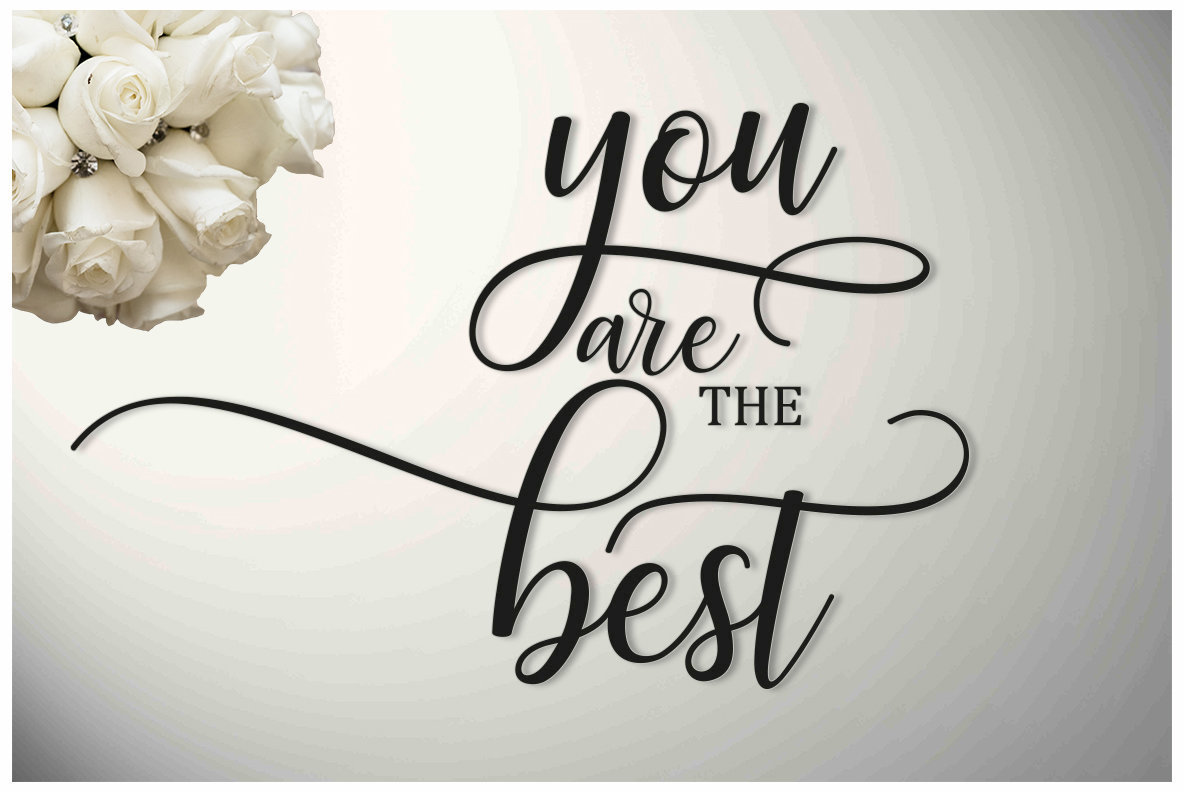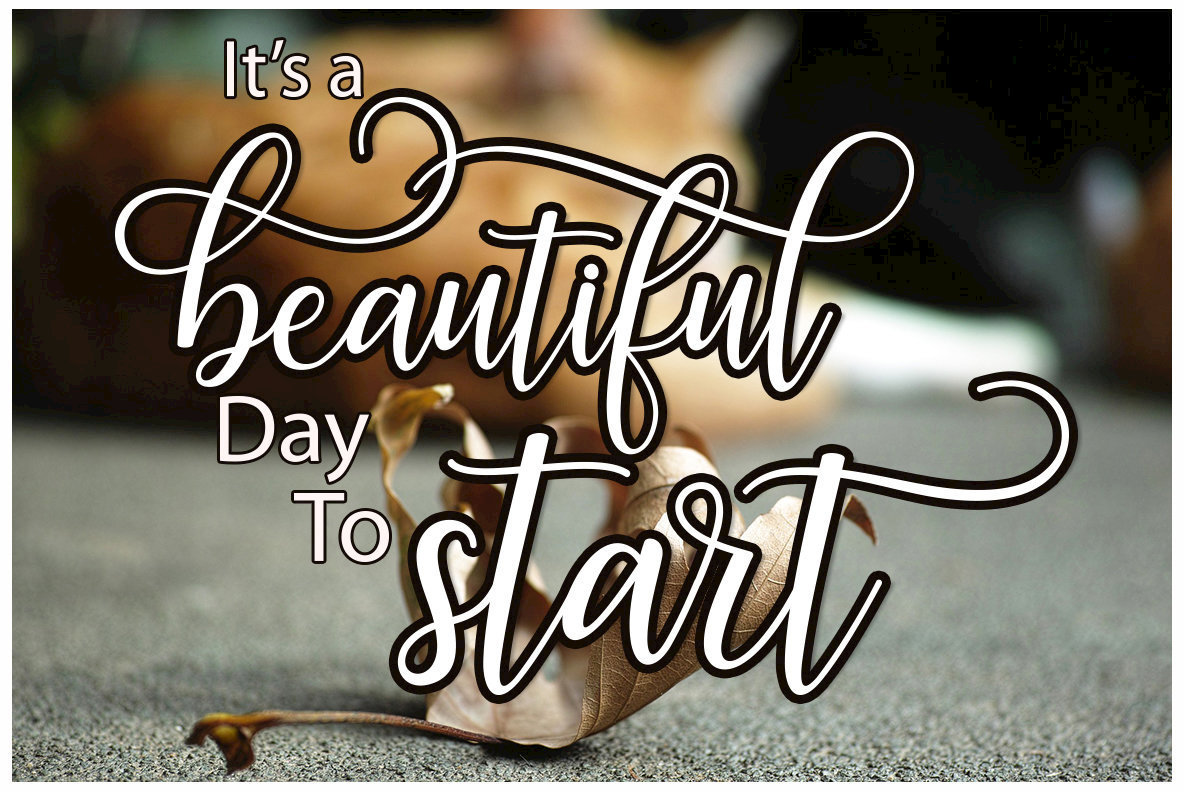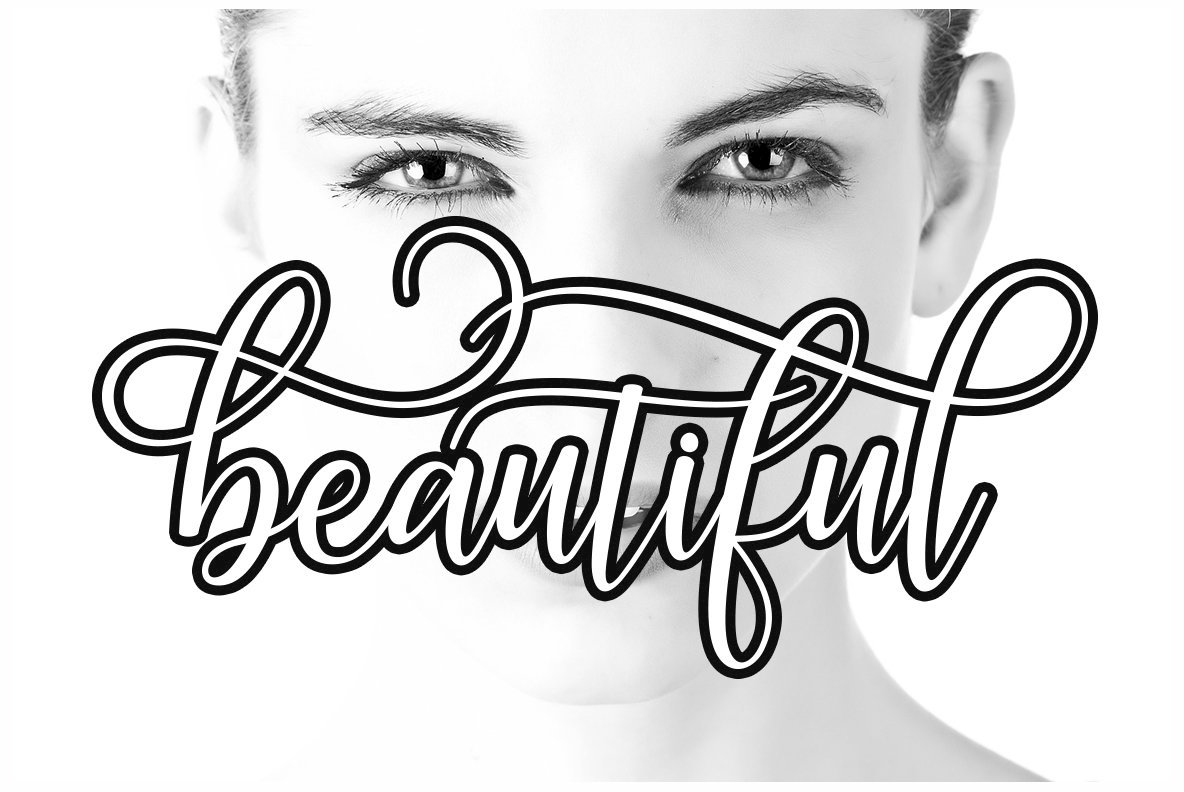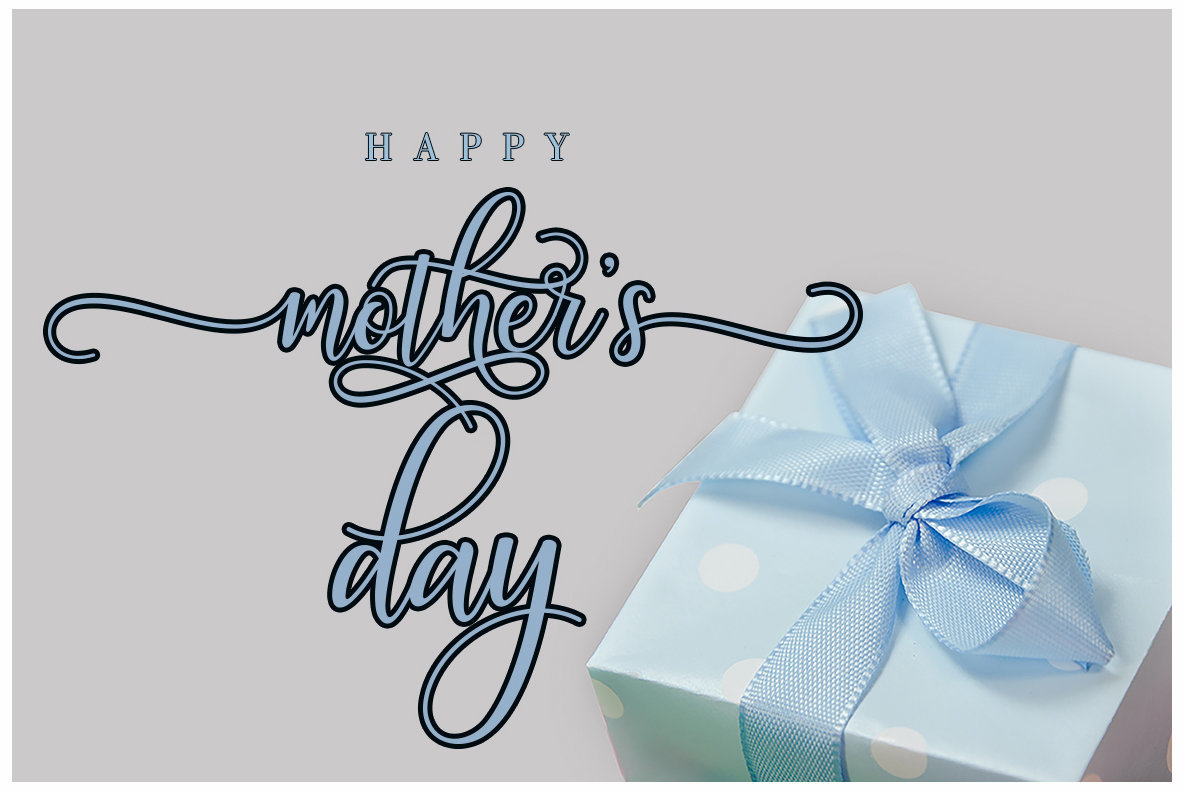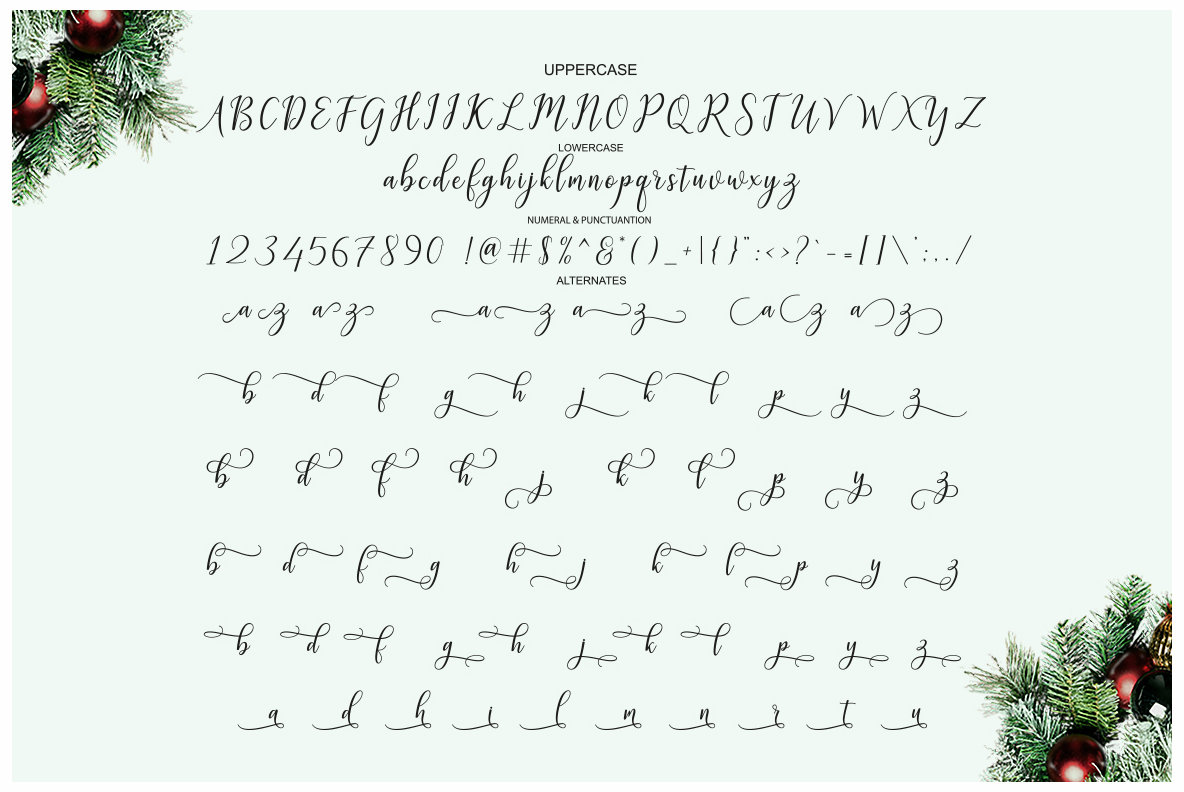
Galatia Script Font
Galatia Script
Galatia Script is a meticulously crafted font offering an extensive collection of over 444 glyphs. Ideal for projects that demand personality and elegance, this typeface provides a plethora of alternative characters. These alternatives are organized into OpenType features, including Swash, Stylistic Sets, Stylistic Alternates, and Contextual Alternates. Designed for modern design tools, Galatia Script seamlessly integrates with advanced software like Adobe Illustrator, InDesign, Photoshop, Corel Draw X, and Microsoft Word.Galatia Script: A Typeface Rich in Ornamental Glyphs
Unique Design Features